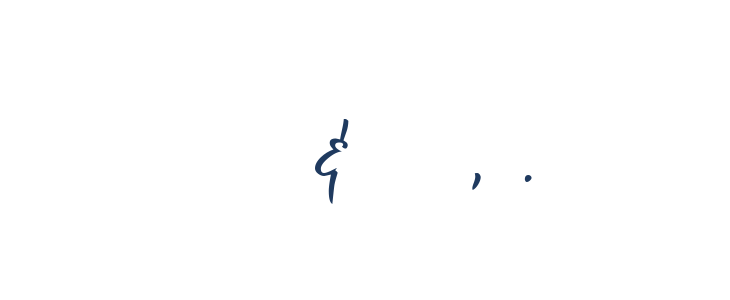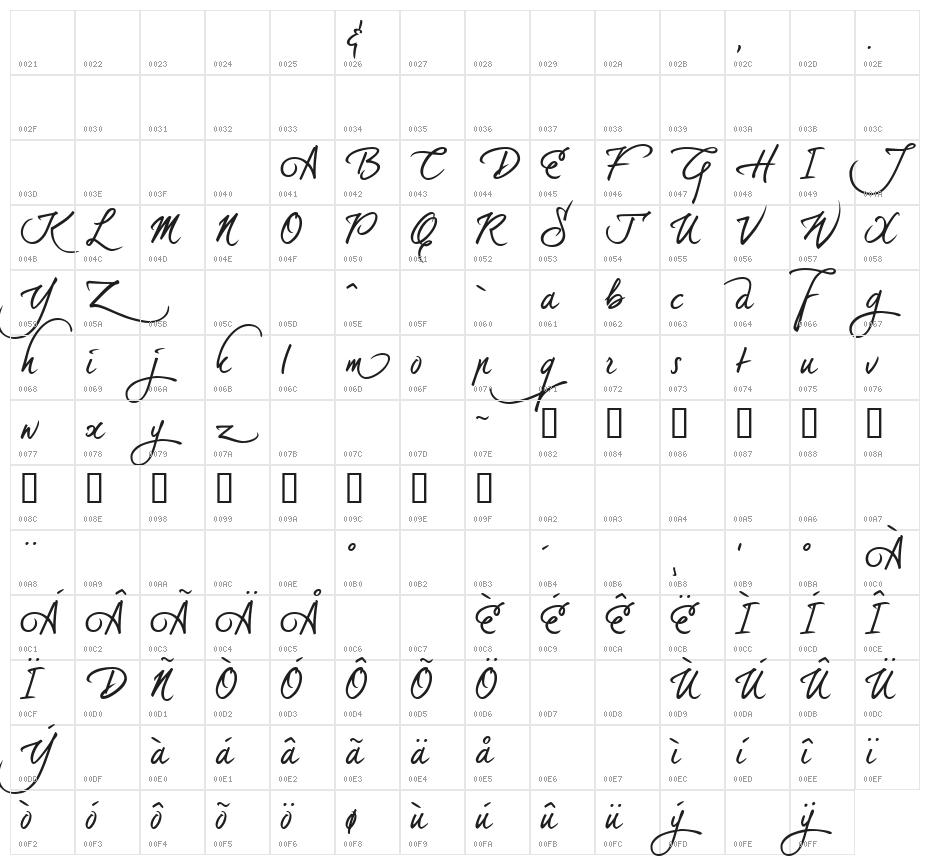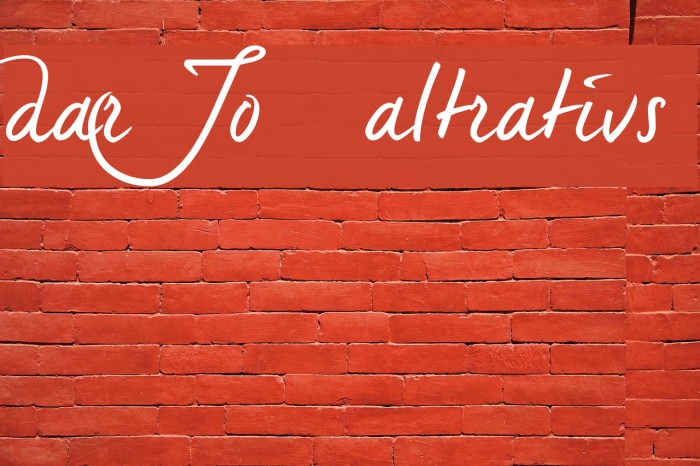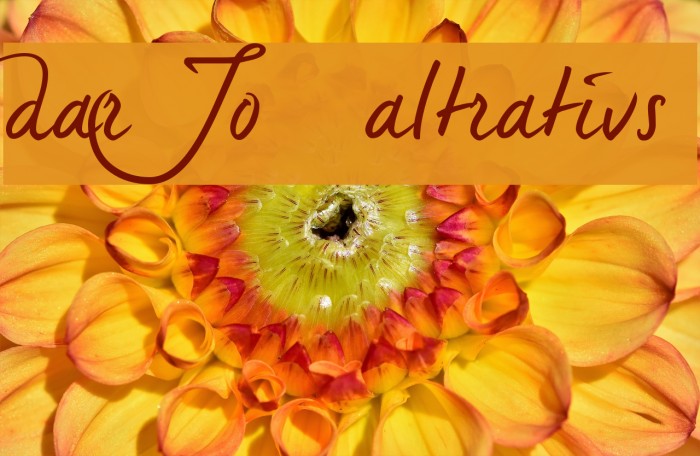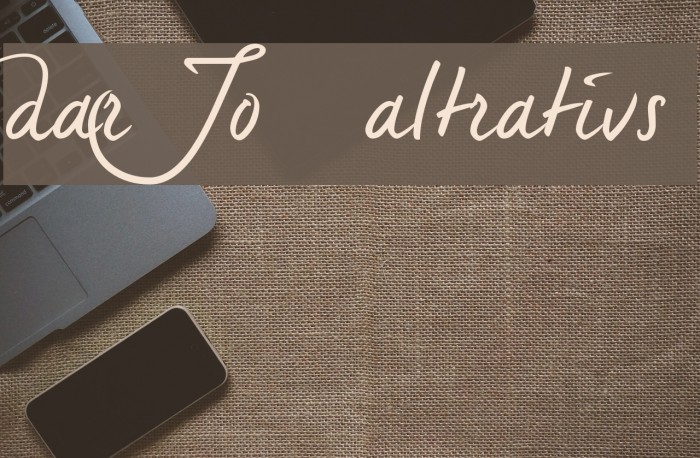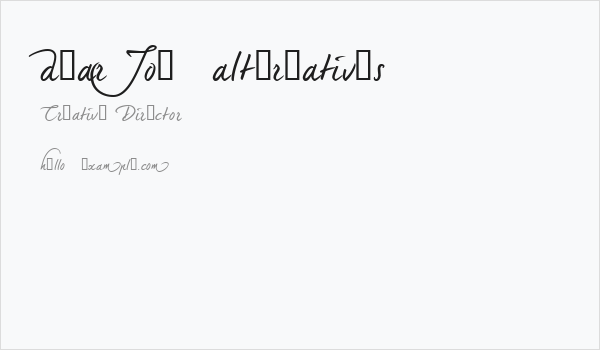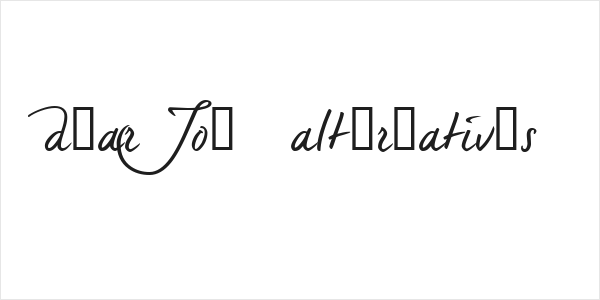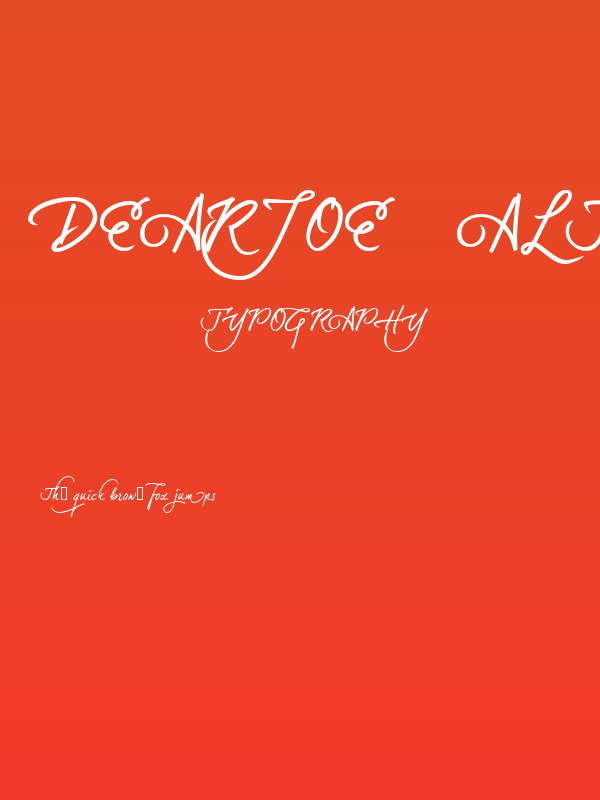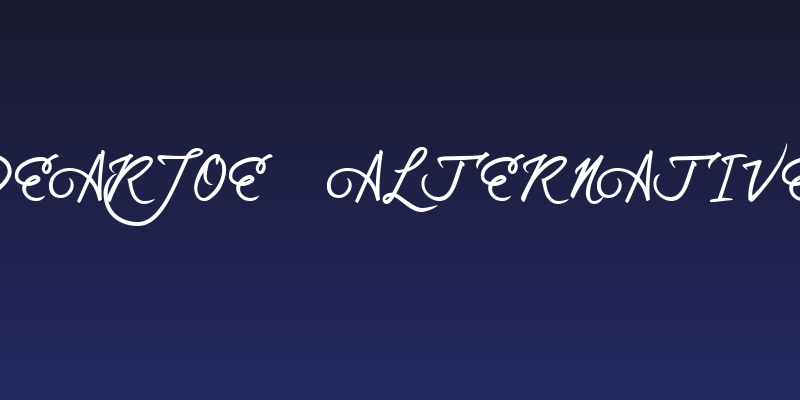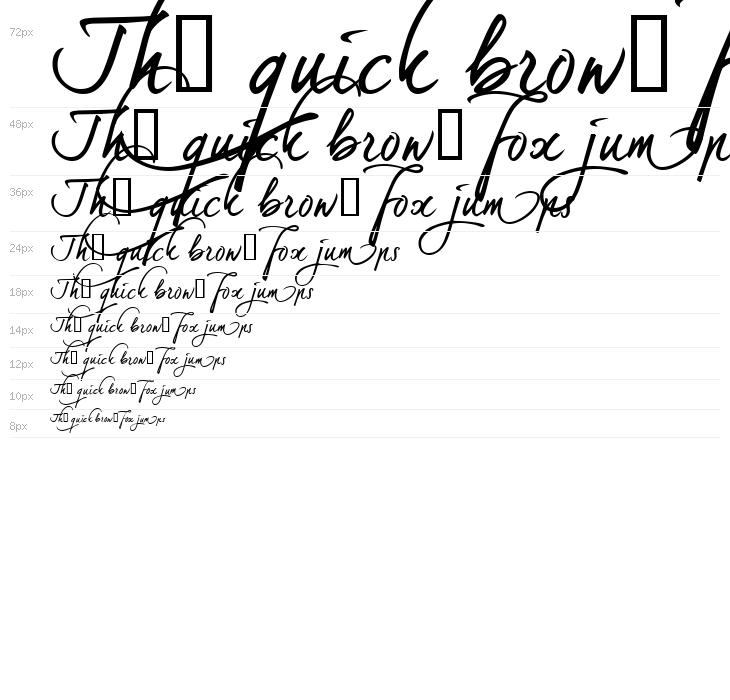
dearJoe 5 alternatives Font
dearJoe 5 alternatives Description
This font features an elegant and flowing script style, characterized by its intricate and artistic letterforms. The uppercase letters exhibit a graceful and sophisticated appearance, with sweeping curves and delicate flourishes that add a touch of refinement. The lowercase letters maintain a consistent fluidity, with some characters extending into elaborate loops and swashes, enhancing the overall decorative nature. The numbers and special characters are designed to complement the alphabet, maintaining the same ornate and stylish aesthetic. This font is ideal for projects that require a touch of elegance and sophistication, such as wedding invitations, luxury branding, or high-end product packaging.
| Proposed Projects | Wedding invitations, luxury branding, high-end product packaging, elegant stationery. |